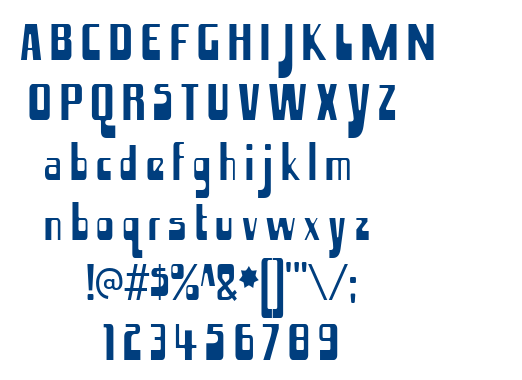
Hamma Mamma Jamma was inspired by funky smelling custom vans of the 1970’s. Don’t forget to read the files inside the zip for details. Updated in 2012.